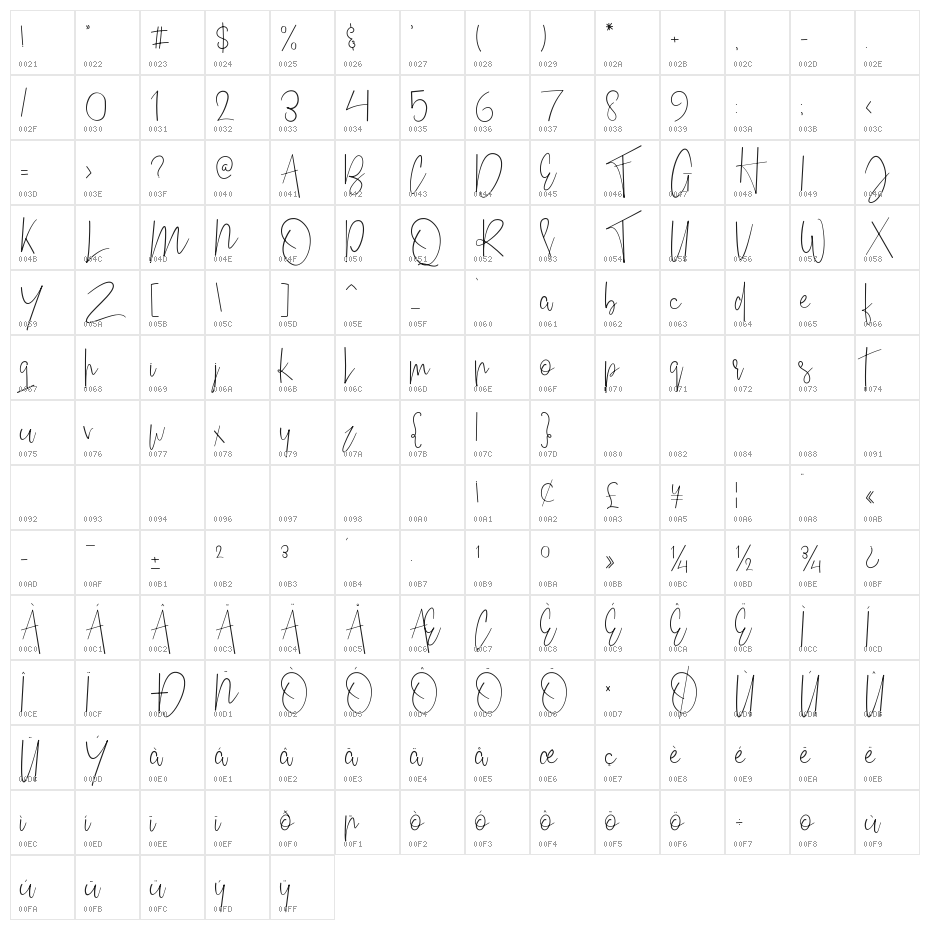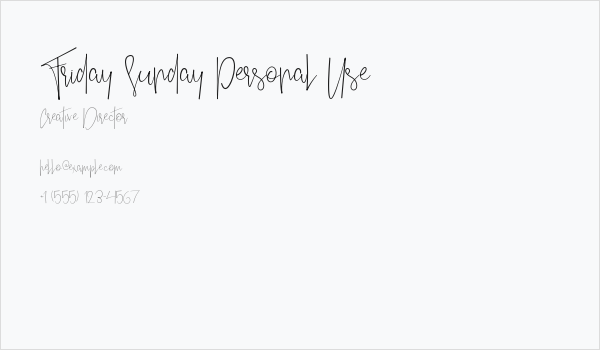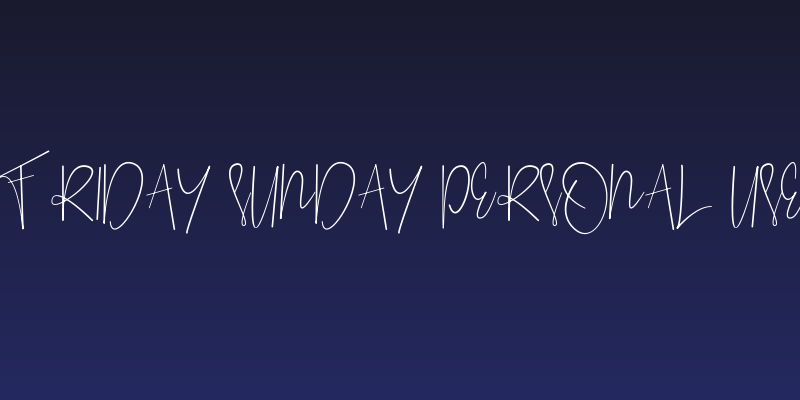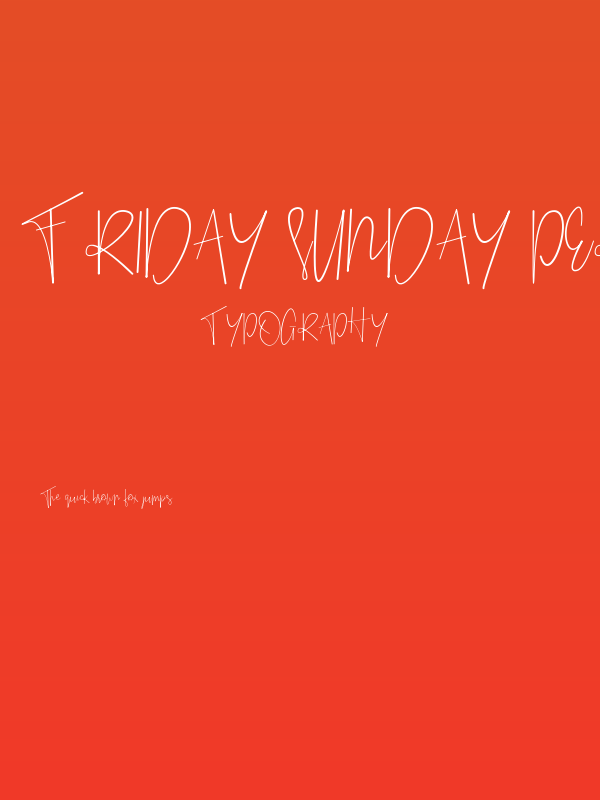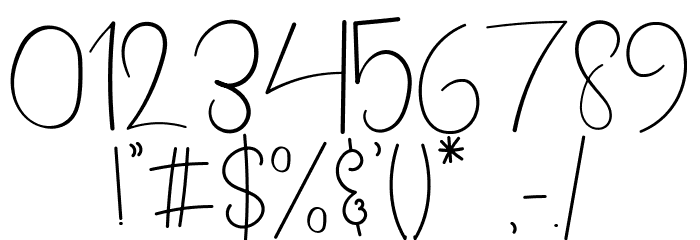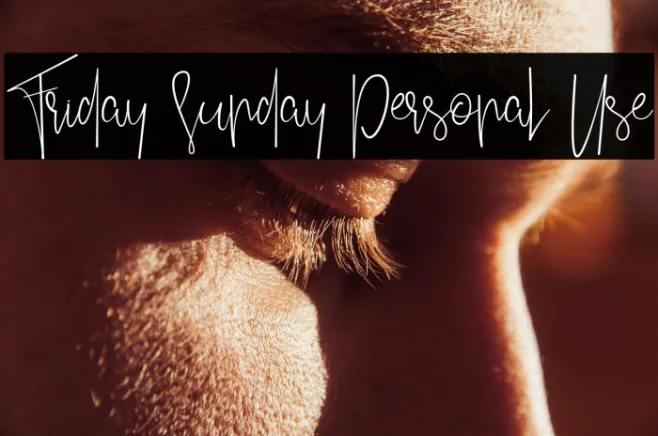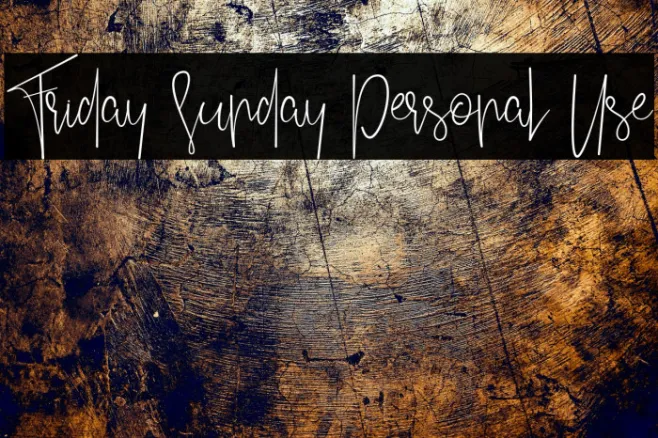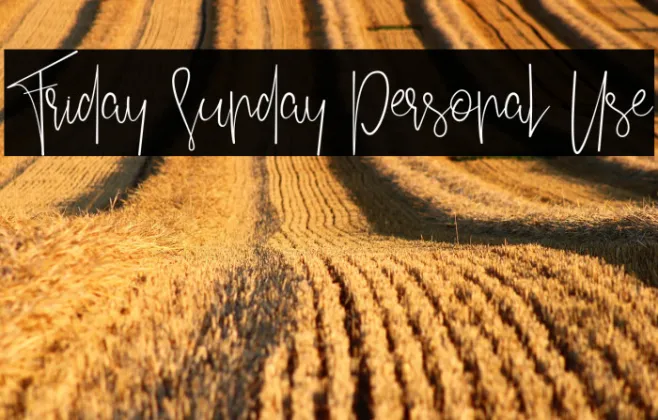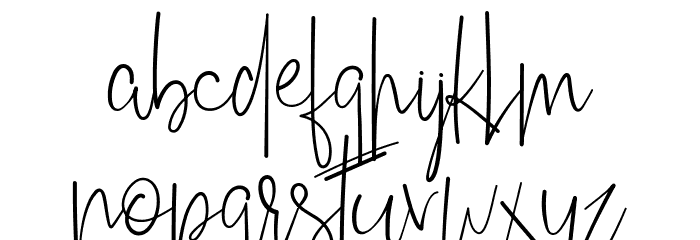
Friday Sunday Personal Use Font
Friday Sunday Personal Use Description
This font features a playful and whimsical handwritten style, characterized by its tall, narrow letters and exaggerated loops and curves. The uppercase letters are particularly elongated, giving a sense of height and elegance, while the lowercase letters maintain a consistent flow with a slightly more relaxed form. The numbers and special characters follow the same playful aesthetic, ensuring a cohesive look across all text. The strokes are thin and consistent, providing a clean and modern appearance. This font is ideal for projects that require a personal touch or a creative flair, such as invitations, greeting cards, or artistic branding.
| Use Case | Headlines, Artistic branding, Invitations |
| Proposed Projects | Ideal for invitations, greeting cards, artistic branding, and creative projects. |